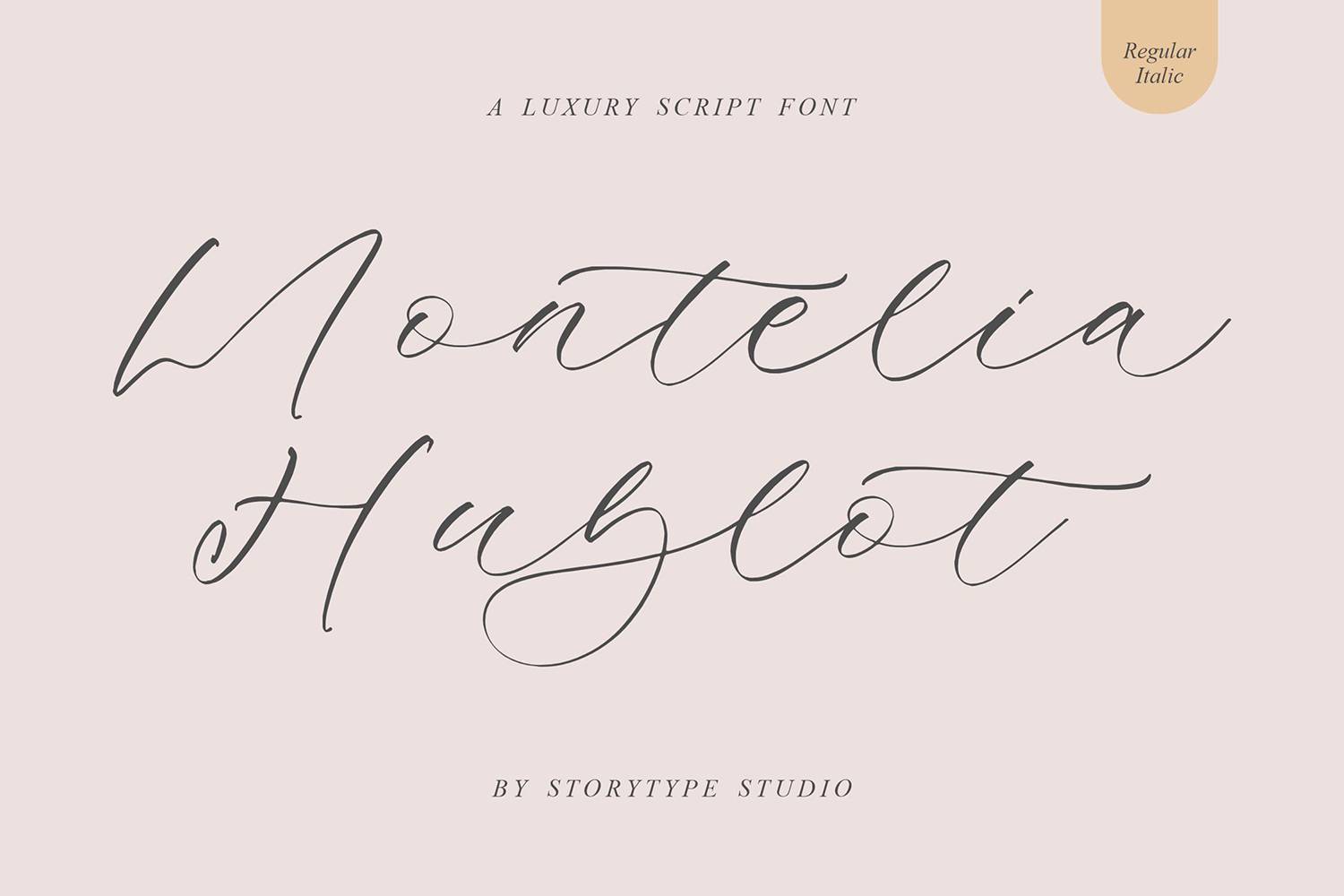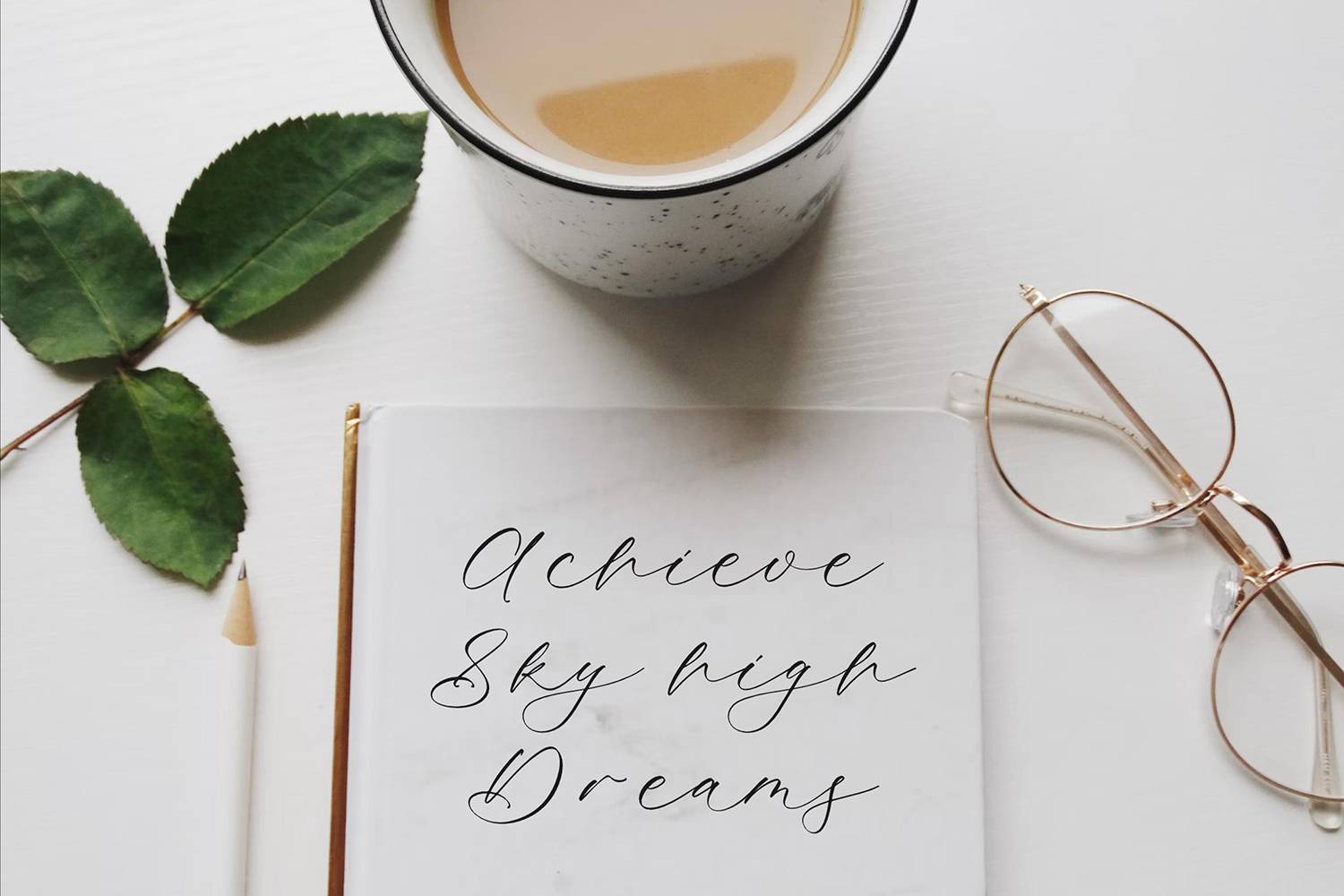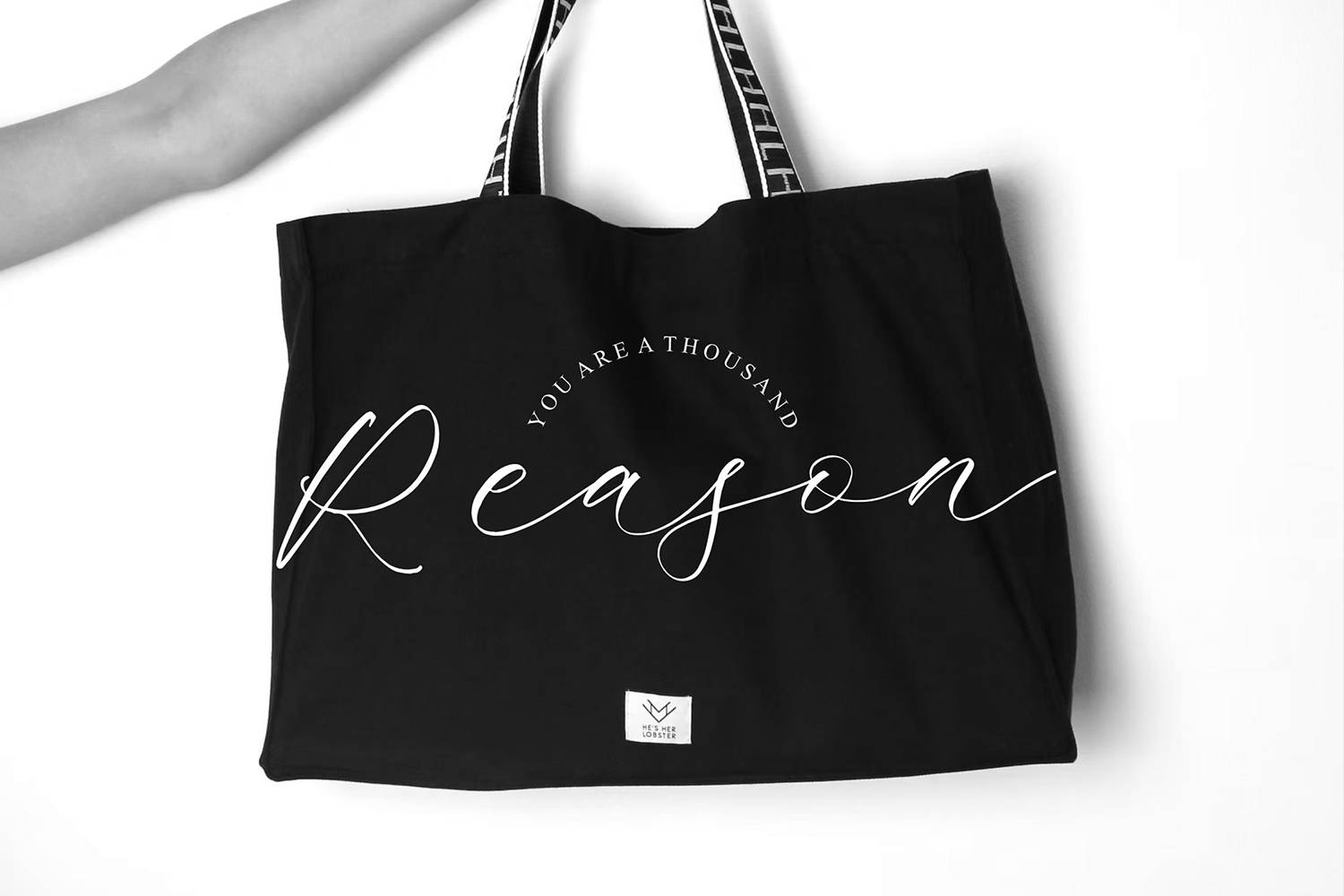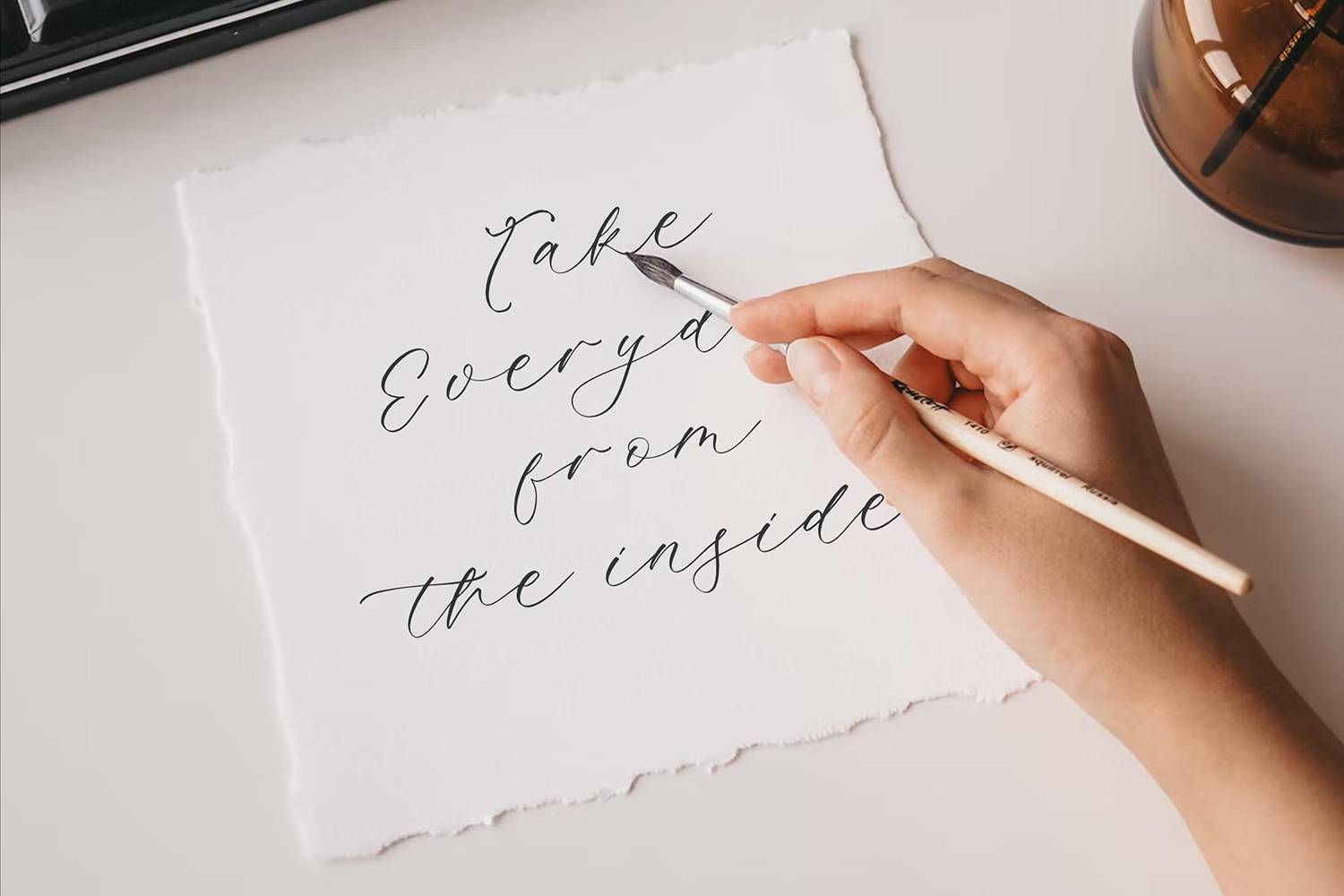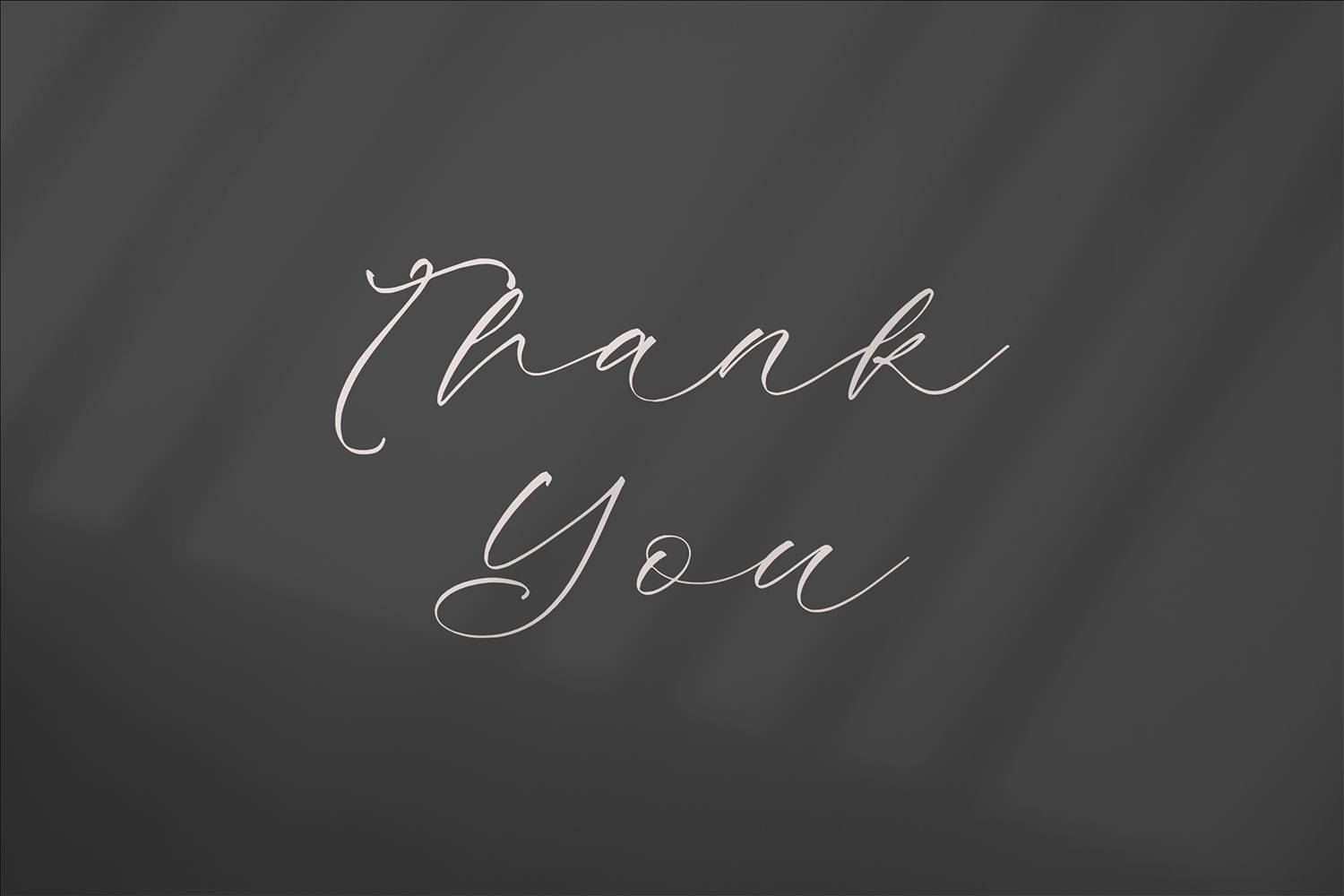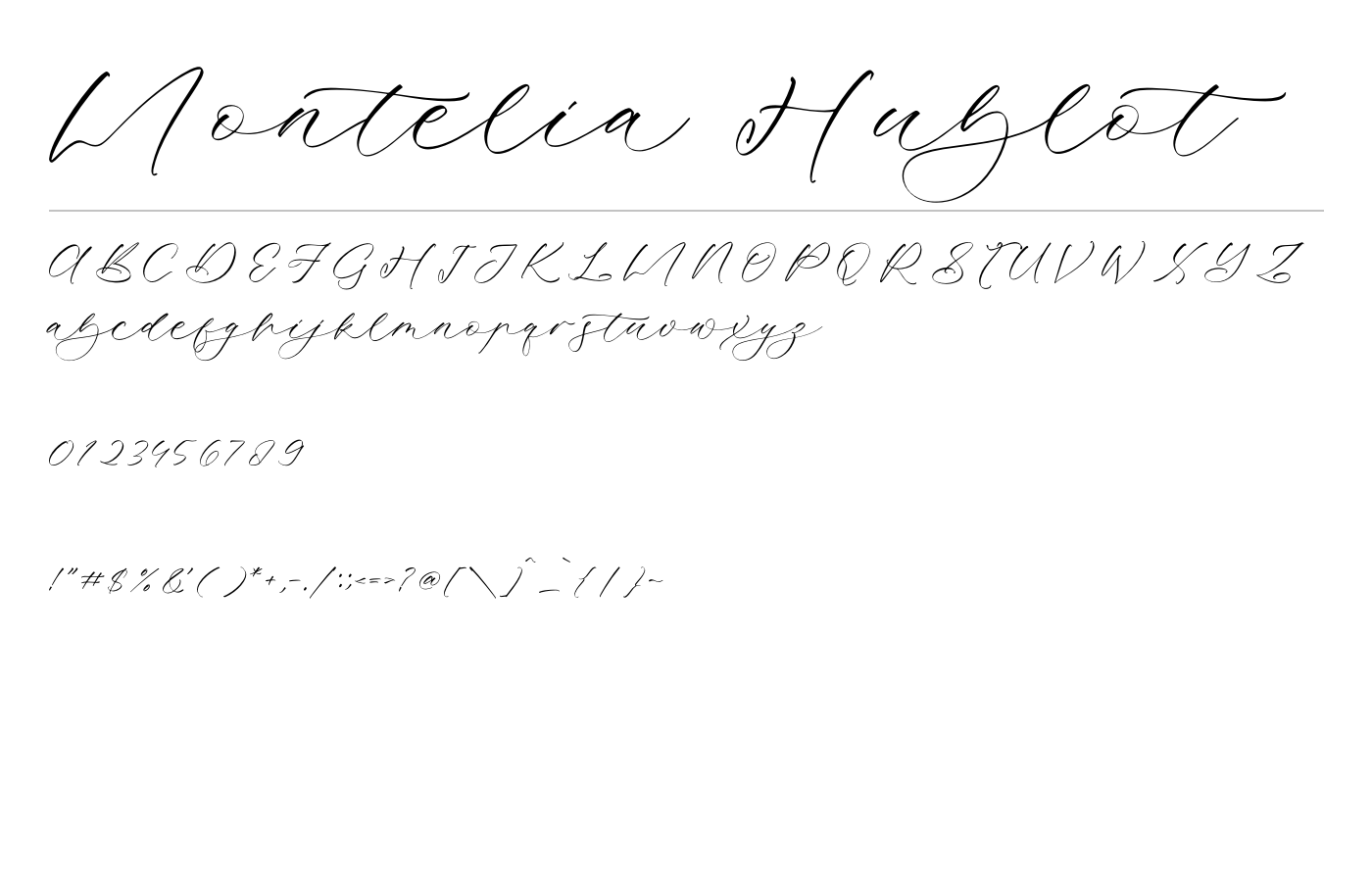
Montelia Hublot is an elegant, delicate script font characterized by its flowing, thin strokes and graceful cursive style. Its airy, hand-drawn feel with intricate loops and swashes makes it perfect for luxury branding, wedding invitations, and sophisticated editorial design where a personal touch and refined charm are desired. This font works best in headline or decorative use, adding a stylish, romantic flair to any project.
Montelia Hublot Font
About Montelia Hublot Font